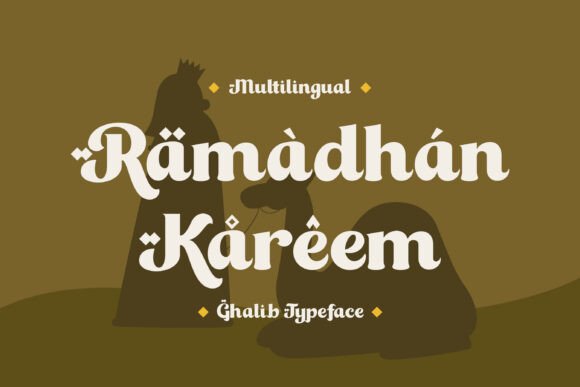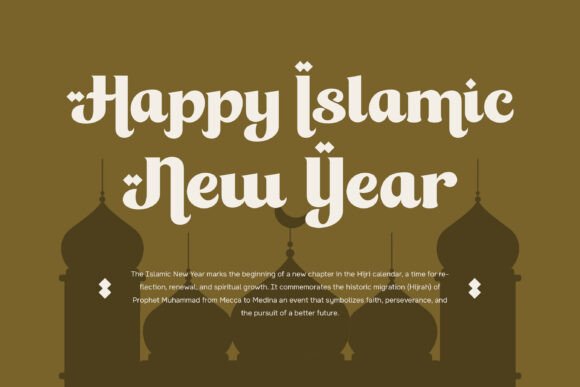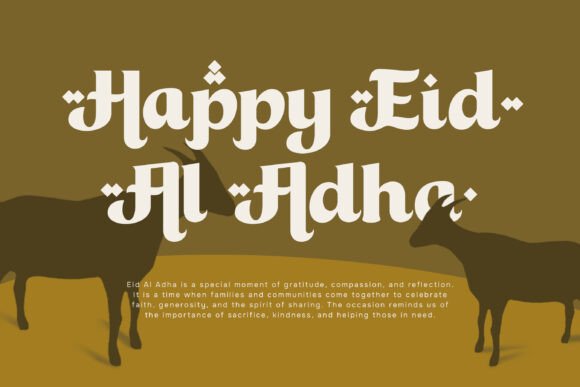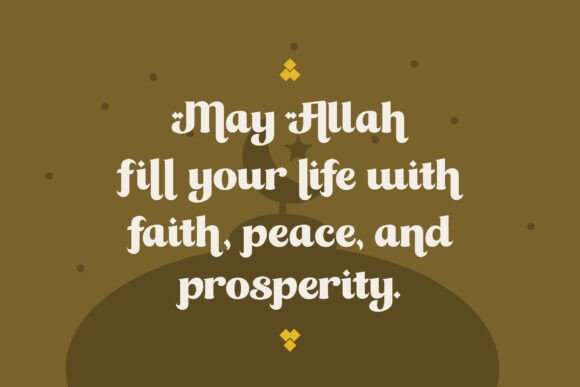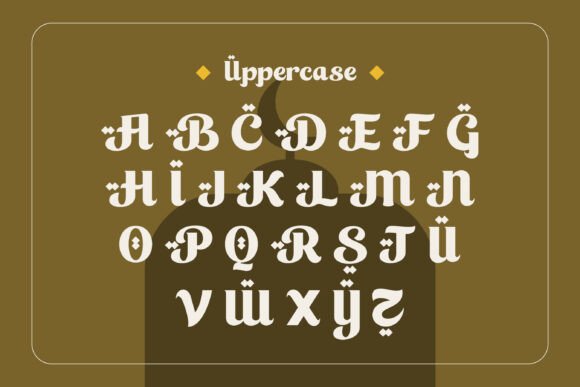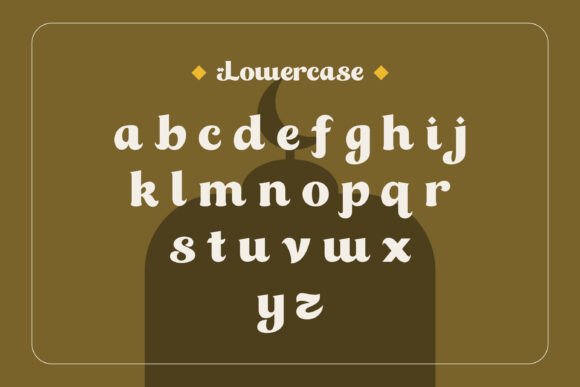
Introduction to Ghalib Font
Ghalib is a beautiful Arabic-style typeface that captures the elegance and artistic richness of traditional Arabic calligraphy with a modern touch.
Its graceful curves, flowing strokes, and intricate details create a harmonious and refined look, bringing a sense of culture, beauty, and sophistication to every design .
Key Features of Ghalib Font